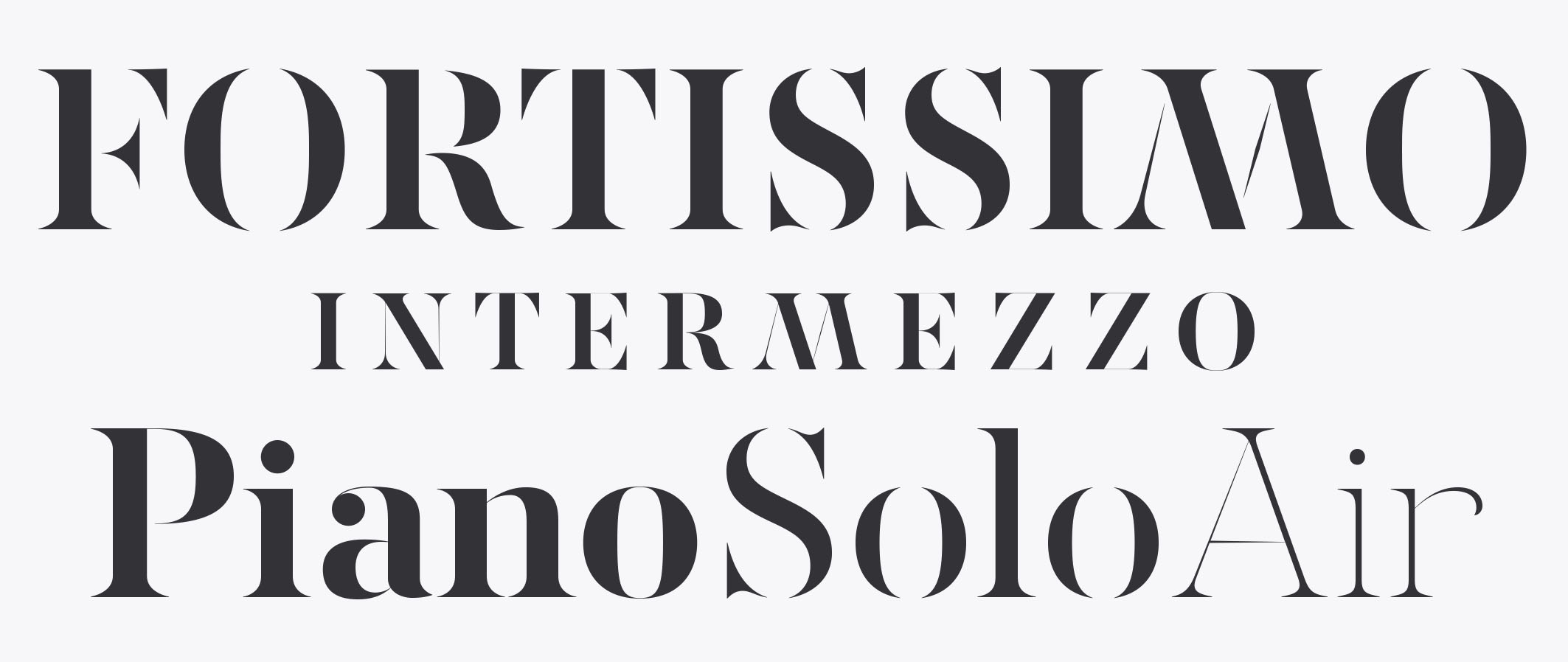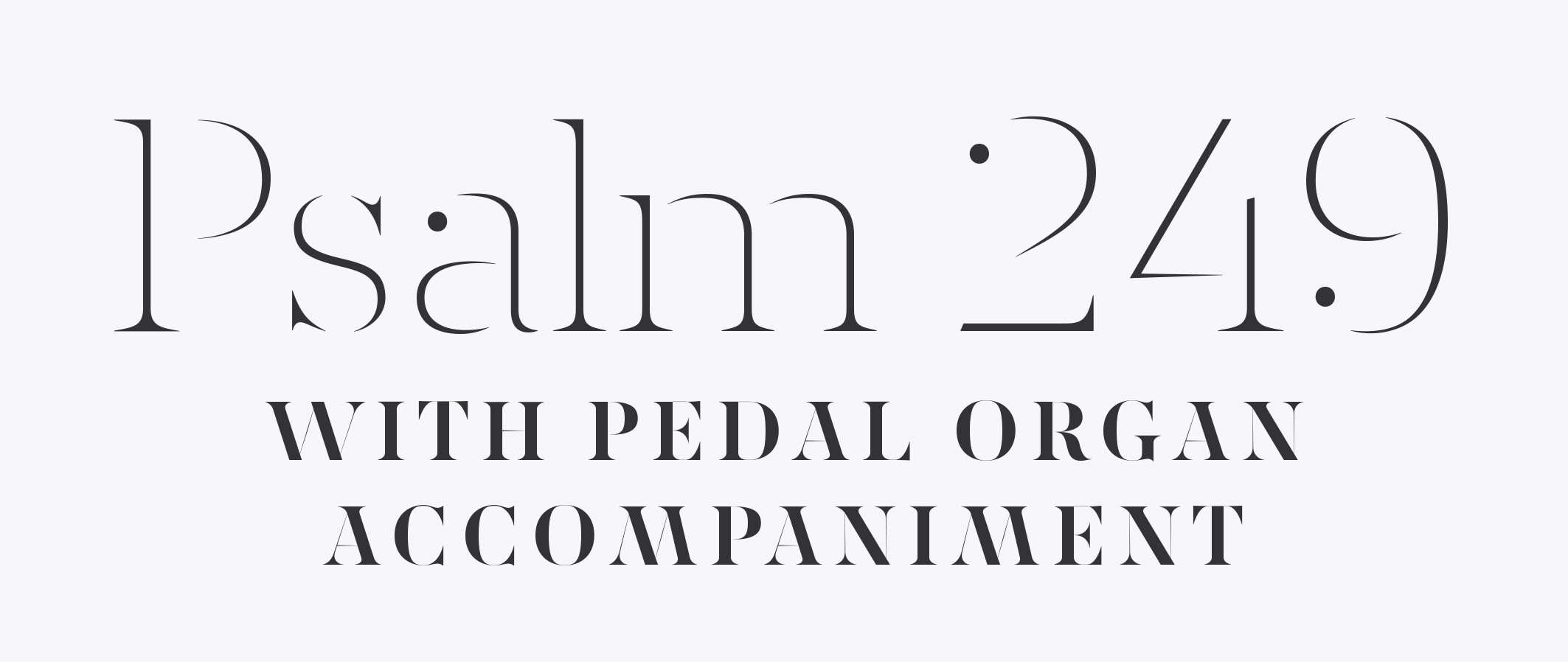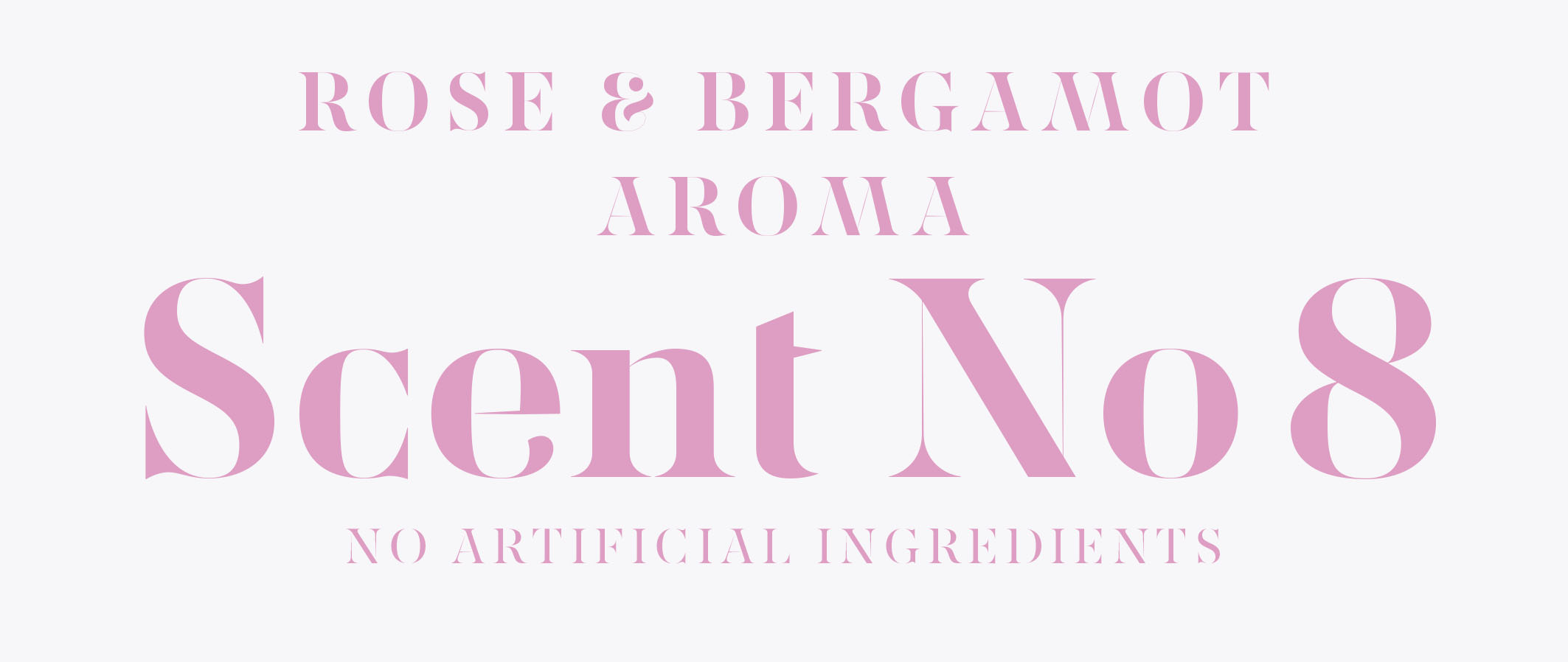
Dear Dolores II
'Dolorem' is latin for sorrow or grief. Starting work on this display font I used the latin requiem texts for testing. The capitals sat well with monumental and solemn words. The broken hairlines suggests stone cuttings where the fine details had been worn down and obliterated over time and it feels at home in a church or in a monument park.
Adding lowercase has given the font a more personal and friendly appearance and opens up new possibilities for use. The name itself is a fictional message to someone long missed.
Dear Dolores comes in a cut and an uncut version where the fine details are left intact.
Both are excellent for headlines or memorable quotes.